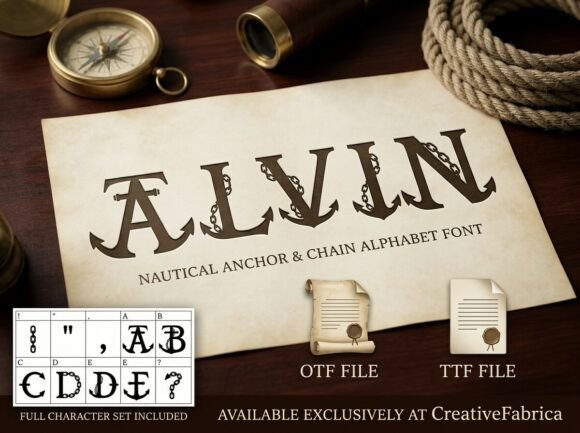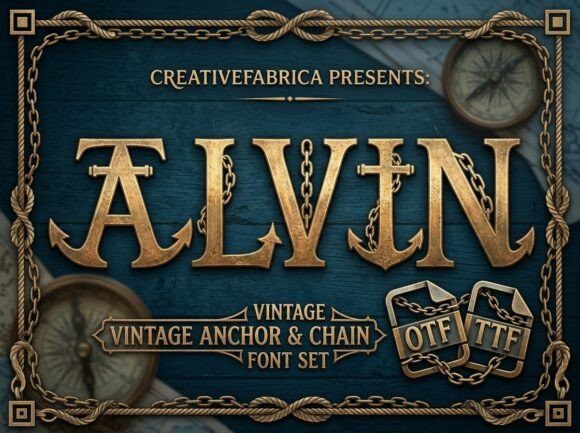
Cast Anchor with Alvin: The Ultimate Nautical Font
Are you looking for a font that can add a touch of rugged elegance to your designs? Look no further than Alvin, a nautical anchor and chain font that’s perfect for craft brewery labels, nautical-themed apparel, seafood restaurant branding, and adventure novel titles. In this article, we’ll dive into the details of Alvin and explore how this font can help you create stylish and secure designs.
The Inspiration Behind Alvin
Alvin is a unique font that’s inspired by the high seas. Its creator expertly crafted each character with heavy metallic textures, featuring integrated anchors, hooks, and rusted iron chains. The result is a ruggedly handsome ornamental display font that’s sure to make a statement. Whether you’re designing a label for a craft brewery or a title for an adventure novel, Alvin is the perfect choice.
Key Features of Alvin
So, what makes Alvin so special? Here are just a few of its key features:
- Heavy Metallic Textures: Alvin’s characters are crafted with heavy metallic textures that give them a rugged, industrial look.
- Integrated Anchors and Chains: Each character features integrated anchors, hooks, and rusted iron chains that add to the font’s nautical theme.
- Ornamental Display Font: Alvin is designed as an ornamental display font, making it perfect for headlines, titles, and labels.
Use Cases for Alvin
So, what can you use Alvin for? The possibilities are endless, but here are a few ideas to get you started:
- Craft Brewery Labels: Alvin is perfect for craft brewery labels, adding a touch of rugged elegance to your beer bottles and cans.
- Nautical-Themed Apparel: Use Alvin to create stylish and secure designs for nautical-themed apparel, such as t-shirts, hoodies, and hats.
- Seafood Restaurant Branding: Alvin is a great choice for seafood restaurant branding, adding a touch of the high seas to your menus, signage, and marketing materials.
- Adventure Novel Titles: Use Alvin to create eye-catching titles for adventure novels, adding a touch of rugged elegance to your book covers.
Why Choose Alvin?
So, why should you choose Alvin for your design projects? Here are just a few reasons:
- Unique and Eye-Catching: Alvin is a unique and eye-catching font that’s sure to make a statement.
- High-Quality Design: Alvin is expertly crafted with high-quality design elements, ensuring that your designs look professional and polished.
- Versatile: Alvin is a versatile font that can be used for a wide range of design projects, from craft brewery labels to adventure novel titles.
In conclusion, Alvin is a ruggedly handsome ornamental display font that’s perfect for designers and crafters looking to add a touch of the high seas to their designs. With its heavy metallic textures, integrated anchors and chains, and versatile design, Alvin is a must-have font for anyone looking to create stylish and secure designs. So why wait? Cast anchor with Alvin today and take your designs to the next level!
Tips and Tricks for Using Alvin
Here are a few tips and tricks for getting the most out of Alvin:
- Experiment with Different Sizes: Alvin looks great in a variety of sizes, so don’t be afraid to experiment with different font sizes to find the one that works best for your design.
- Pair with Other Fonts: Alvin pairs well with a variety of other fonts, so try pairing it with a sans-serif font for a contrasting look.
- Use it Sparingly: Because Alvin is such a bold font, it’s best to use it sparingly. Try using it for headlines and titles, and a simpler font for body text.
By following these tips and tricks, you can get the most out of Alvin and create amazing designs that are sure to impress.